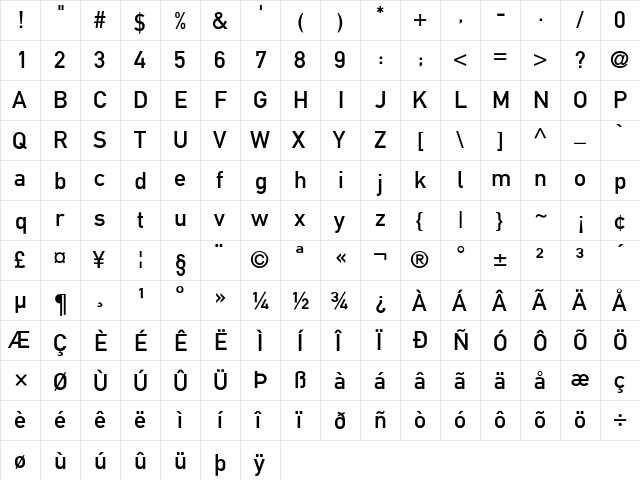
DINMittelschrift-Alternate Regular Font Preview
DINMittelschrift-Alternate Regular
Design Context for DINMittelschrift-Alternate Typeface
DINMittelschrift-Alternate is a composed and adaptable typeface that performs quietly and consistently across a wide range of design contexts.